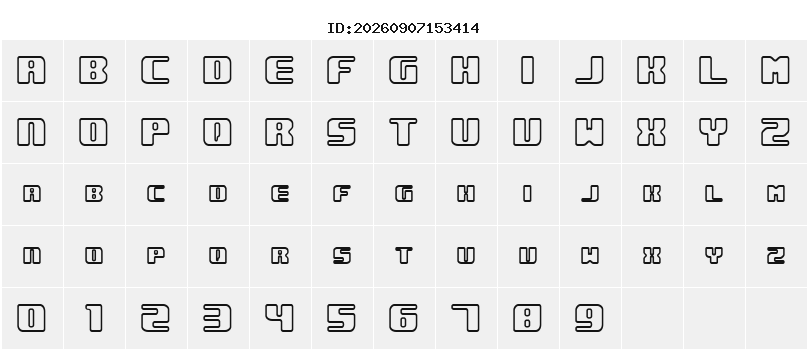
• Font Name: Underwhelmed Outline BRK
• Full Font Name: Underwhelmed Outline BRK
About Underwhelmed Outline BRK.ttf
Underwhelmed Outline BRK.ttf is a modern, elegant sans-serif font designed for ultimate readability and visual harmony. Perfect for branding, headlines, web design, and print materials.